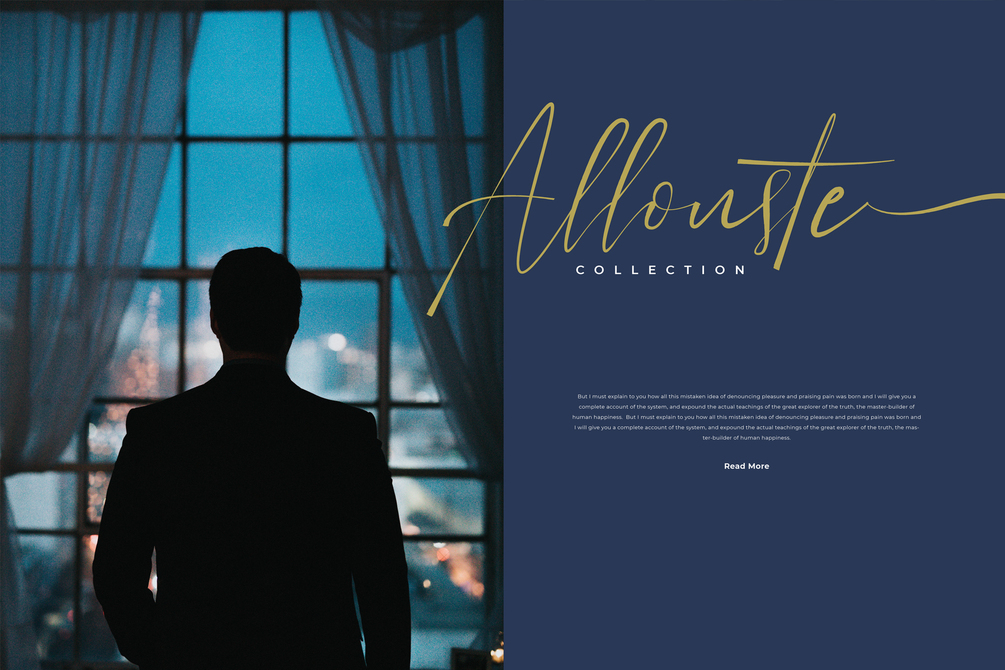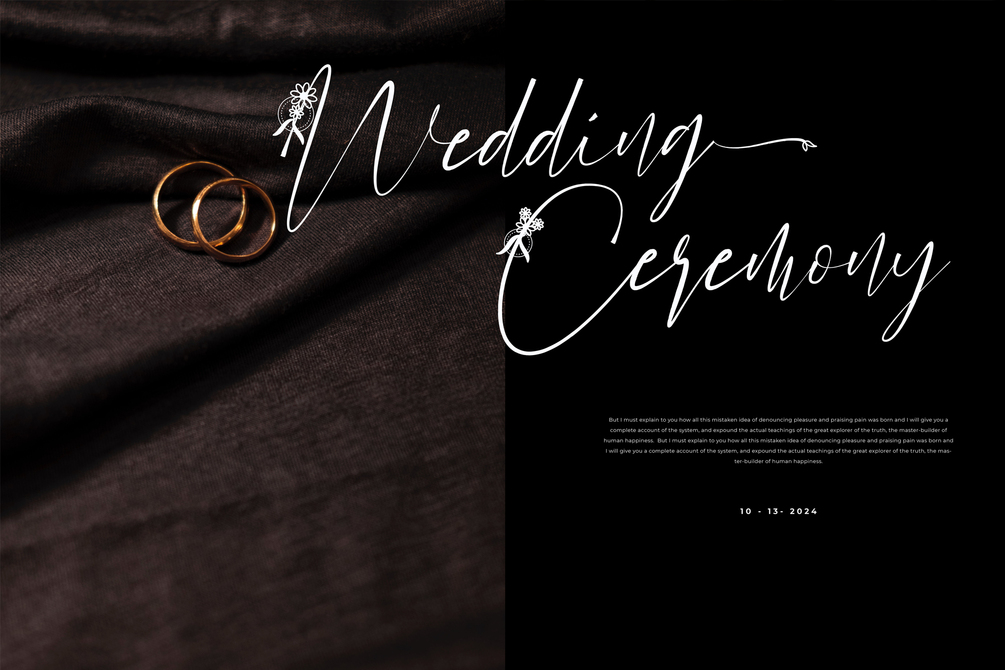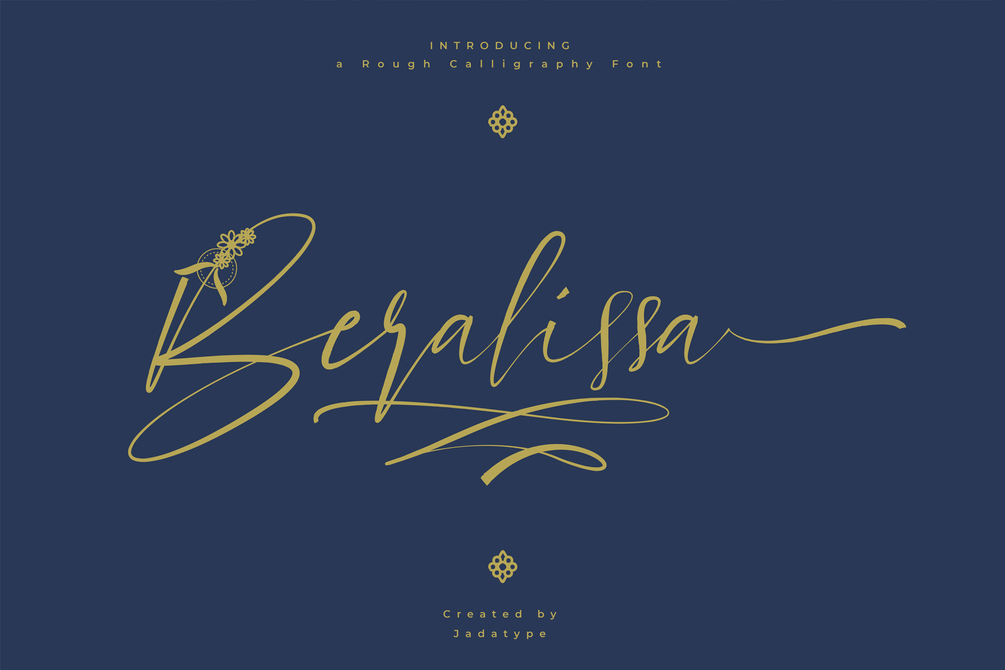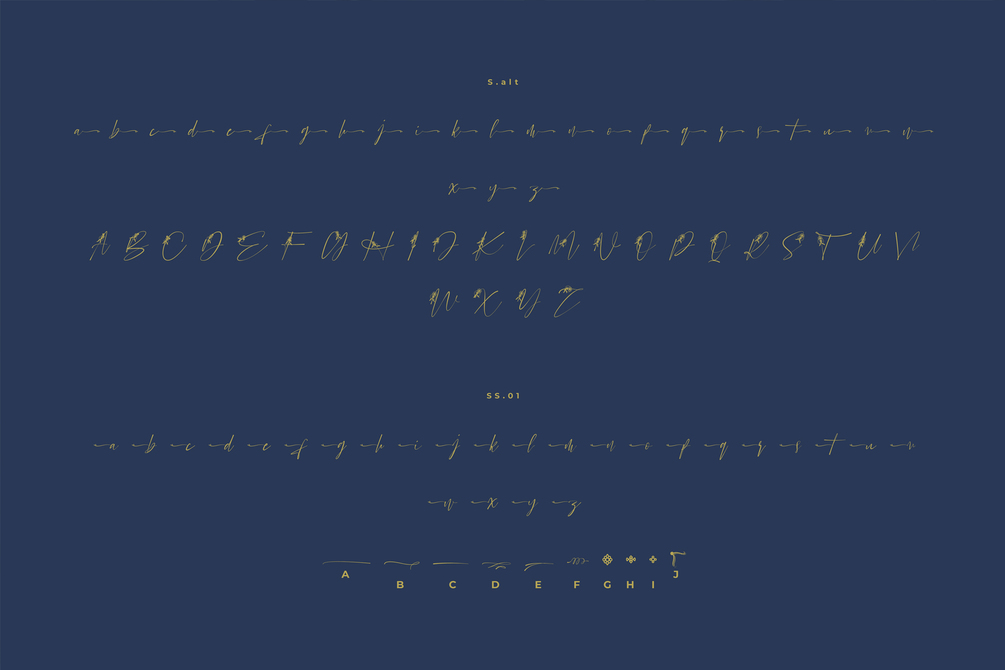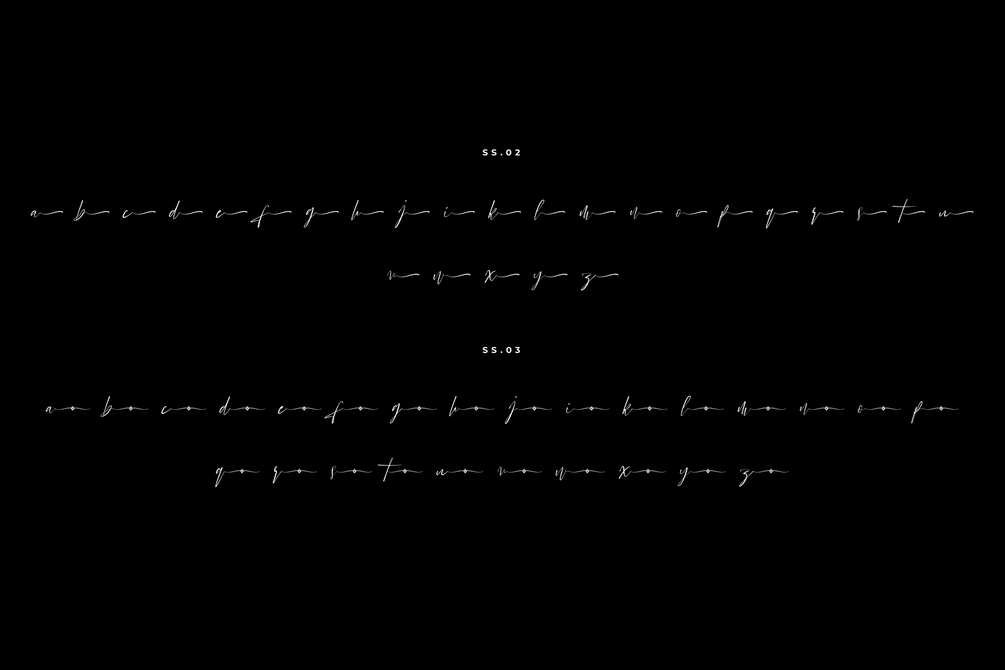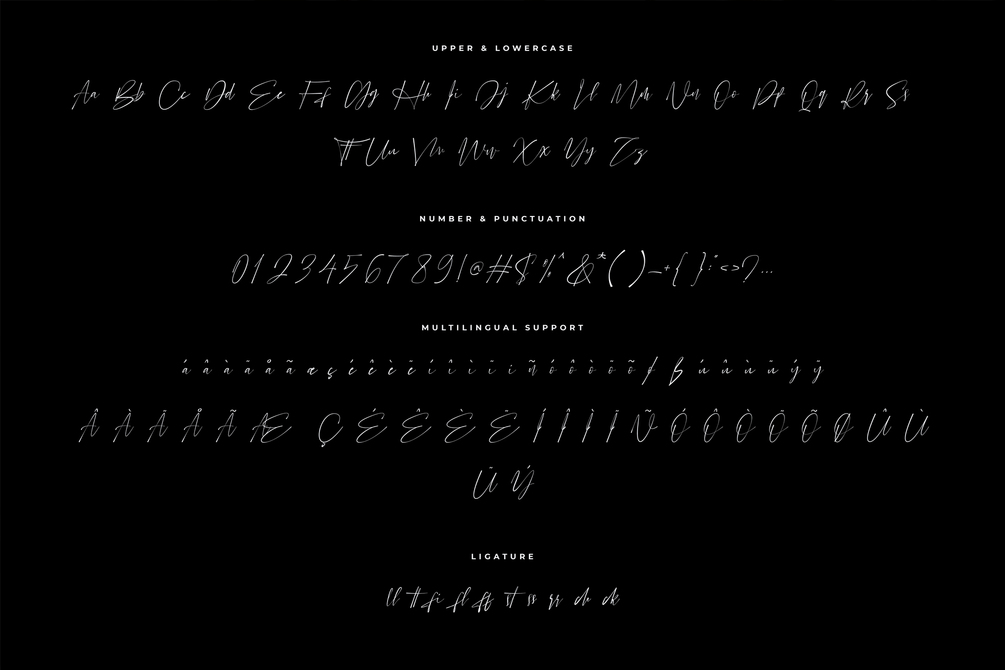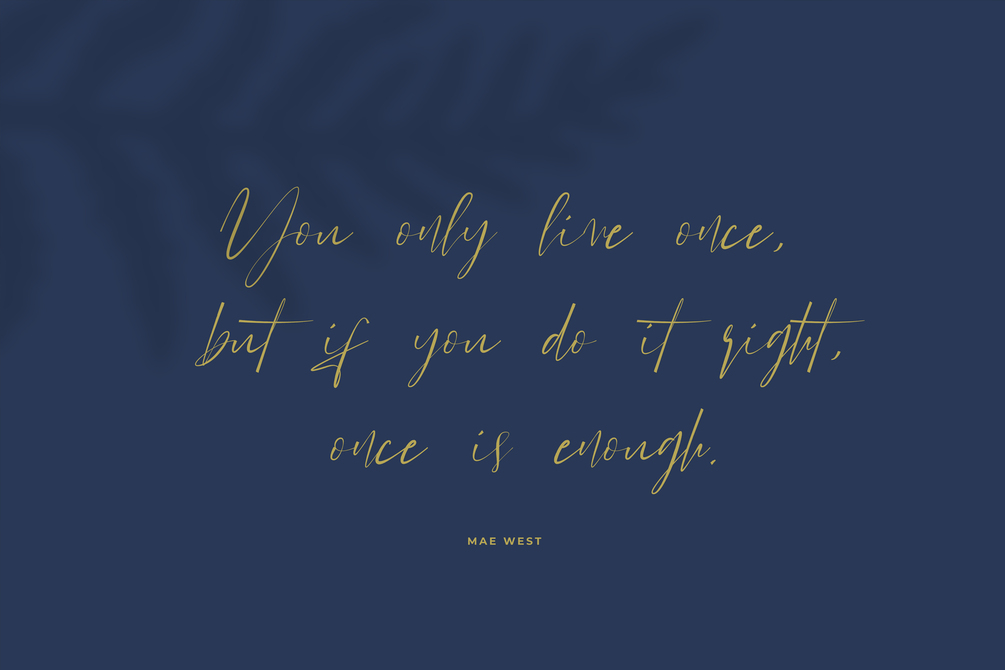
Beralissa Font
Beralissa is a script font with a calligraphy style. suitable for social media, logotype, products, advertisements, and so on. contains standard English letters, numbers, punctuation, alternates and several accents that support multilingualism.